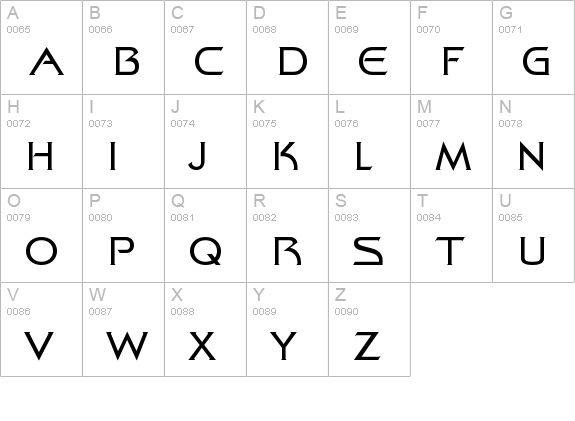
Introducing Star Trek Film BT font, a stunning typeface inspired by the iconic Star Trek franchise. This font encapsulates the futuristic essence of the series, allowing you to bring a touch of intergalactic adventure to your designs. Star Trek Film BT font is meticulously crafted, featuring sleek and sharp letterforms that effortlessly capture the spirit of exploration and discovery. Its bold and distinct characters make a statement, commanding attention and adding a sense of excitement to any project. One of the standout features of Star Trek Film BT font is that it is freely available to download at FontsMarket.com. This means that you can easily access this incredible typeface and incorporate it into your designs without any cost or hassle. Whether you're a die-hard Star Trek fan or simply someone who appreciates exceptional typography, this font is a must-have addition to your collection. With Star Trek Film BT font, you have the freedom to explore endless design possibilities. From posters and banners to logos and headlines, this font is versatile and adaptable, allowing you to create visually striking and captivating designs that will leave a lasting impression. So, why wait? Embrace the spirit of the Star Trek universe and download Star Trek Film BT font for free at FontsMarket.com. Unleash your creativity and boldly go where no designer has gone before with this incredible typeface.